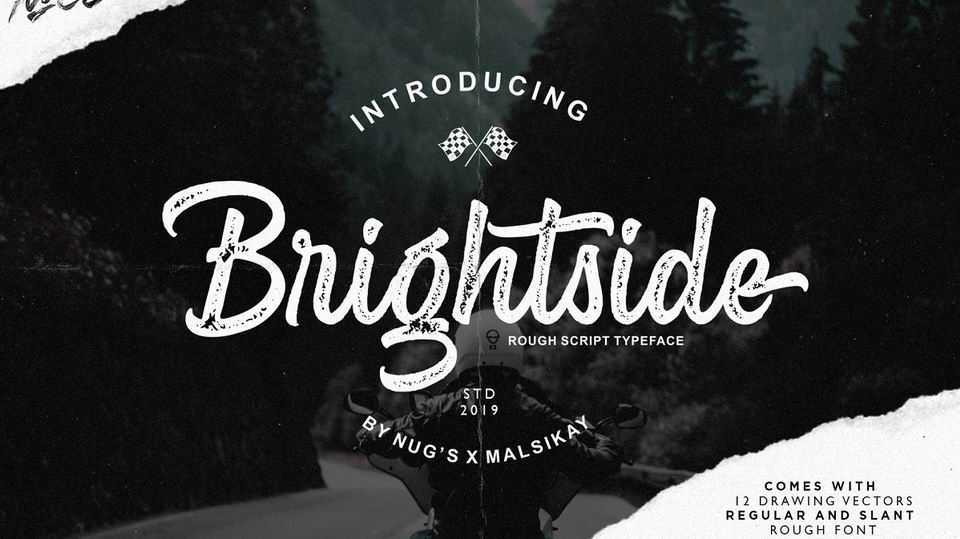
Download Brightside font, an amazing script with a vintage style and a rough texture that makes your design bolder. Brightside font with its sporty look is great to playing typography or logos, labels, badges, branding, merchandise, all about of fashions and arts.
Designer: Nug’s Project